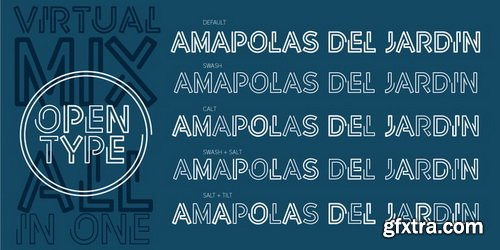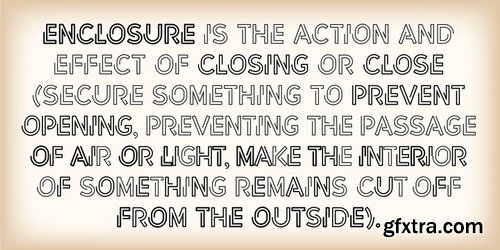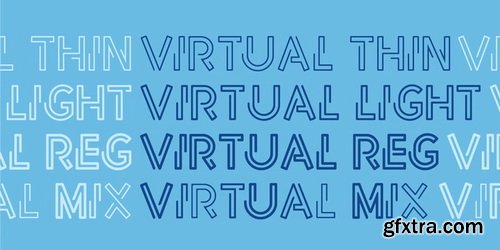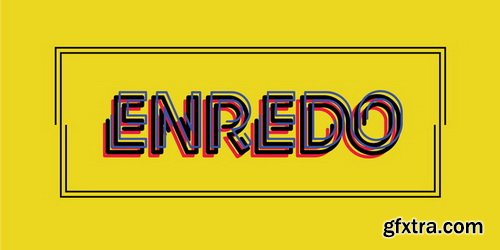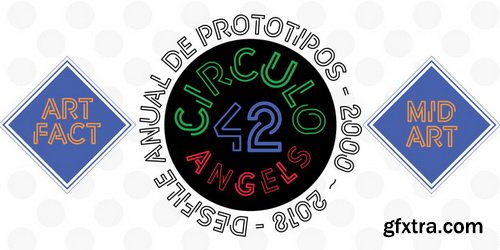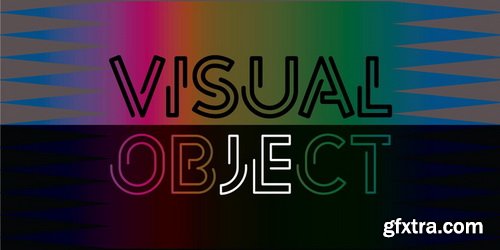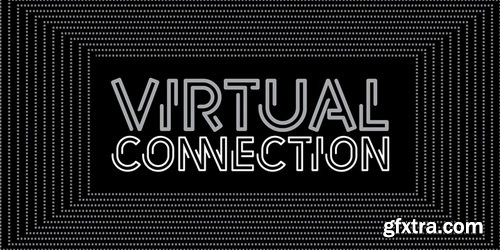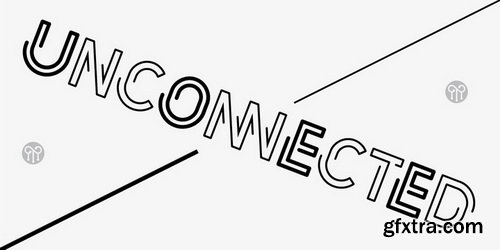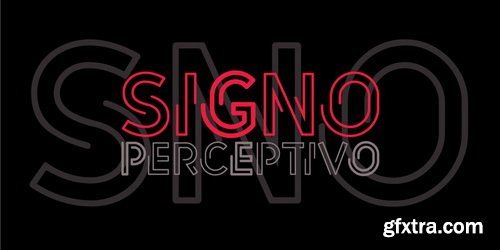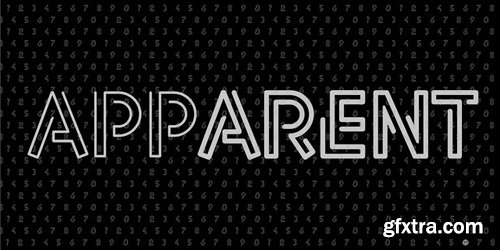
Virtual is an experimental fantasy font based on a pseudo optical enclosure where a linear system that is not connected there. Virtual comes in three weights: regular. light, and thin also an virtual mix by mixing different thicknesses in a single font, with alternative variations through features of open type.Virtual is an experience based on play with the laws of the Gestalt of closing.